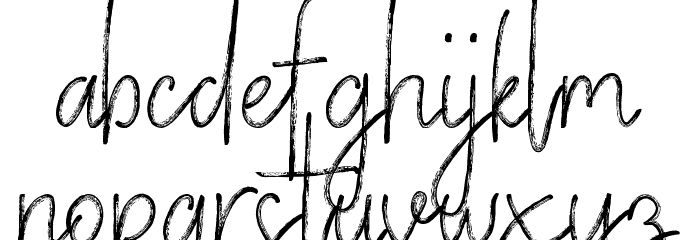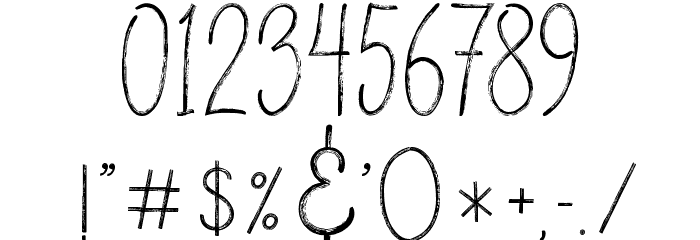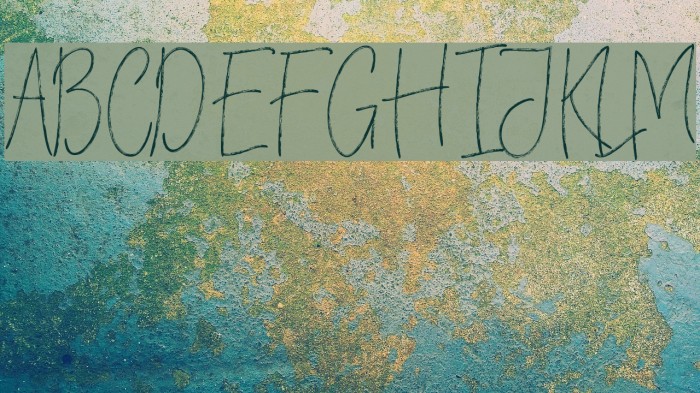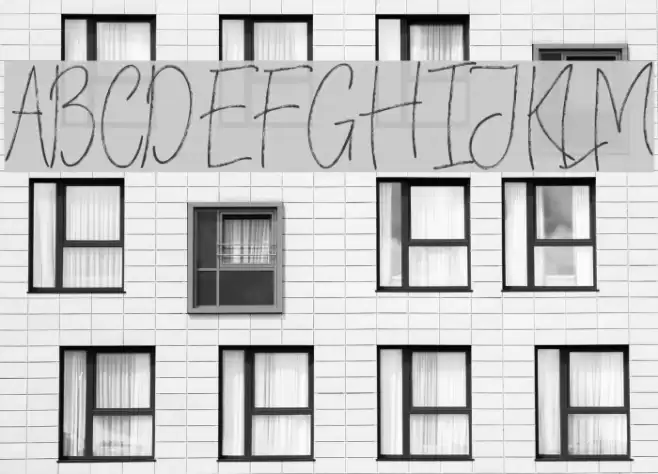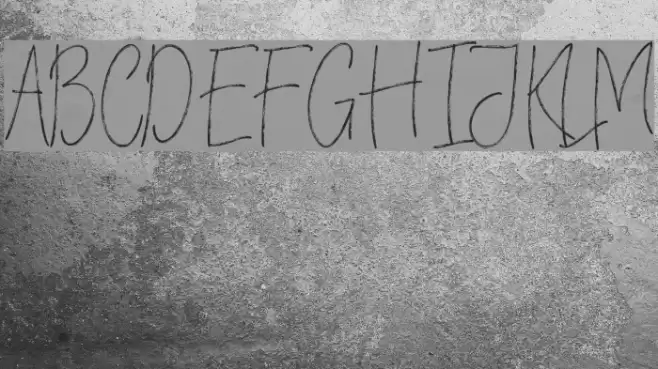
VerticalBrushyFree Font
This font features a distinctive hand-drawn style with a brush-like texture that gives it a dynamic and artistic appearance. The uppercase letters are tall and slender, while the lowercase letters maintain a consistent flow, adding a sense of movement and energy. The numbers are clear and legible, with a slightly elongated form that complements the overall design. Special characters are creatively integrated, maintaining the font's unique aesthetic. The uneven stroke thickness and slight irregularities in the letterforms contribute to its organic and informal feel, making it ideal for projects that require a personal touch.
A dynamic, brush-style font with an artistic and hand-drawn appearance.
- Proposed Projects: Ideal for creative projects such as posters, invitations, branding, and artistic designs.
- Overall Style: Artistic
- Use Case: Logos, Headlines, Creative projects